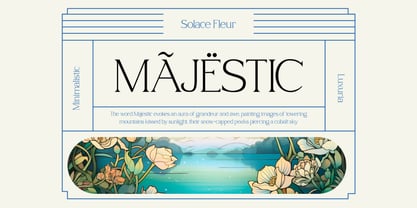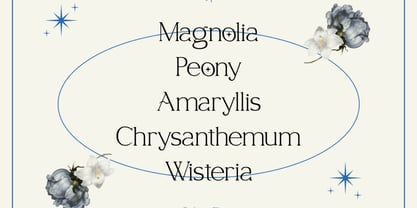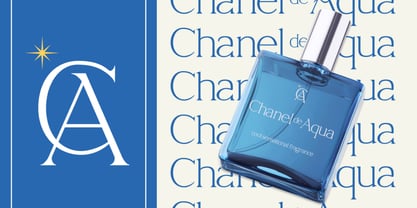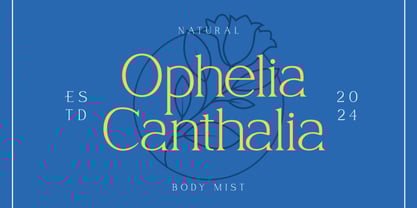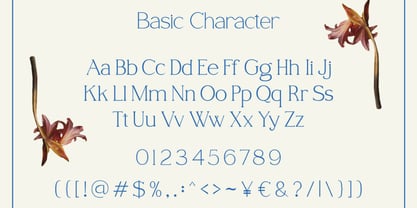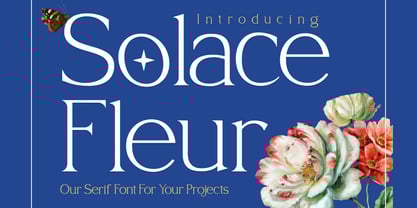
Solace Fleur
by Vadova Std
The Solace Fleur Font Family was designed by and published by Vadova Std. Solace Fleur contains 1 styles.
Elevate your designs with Solar Fleur Serif Font, a modern font perfect for adding elegance and style to your projects. This font offers key features like OpenType format compatibility, uppercase and lowercase characters, plus numerals and punctuation, perfect for versatile and professional designs. Whether it’s for quotes, logotypes, magazine headers or more.